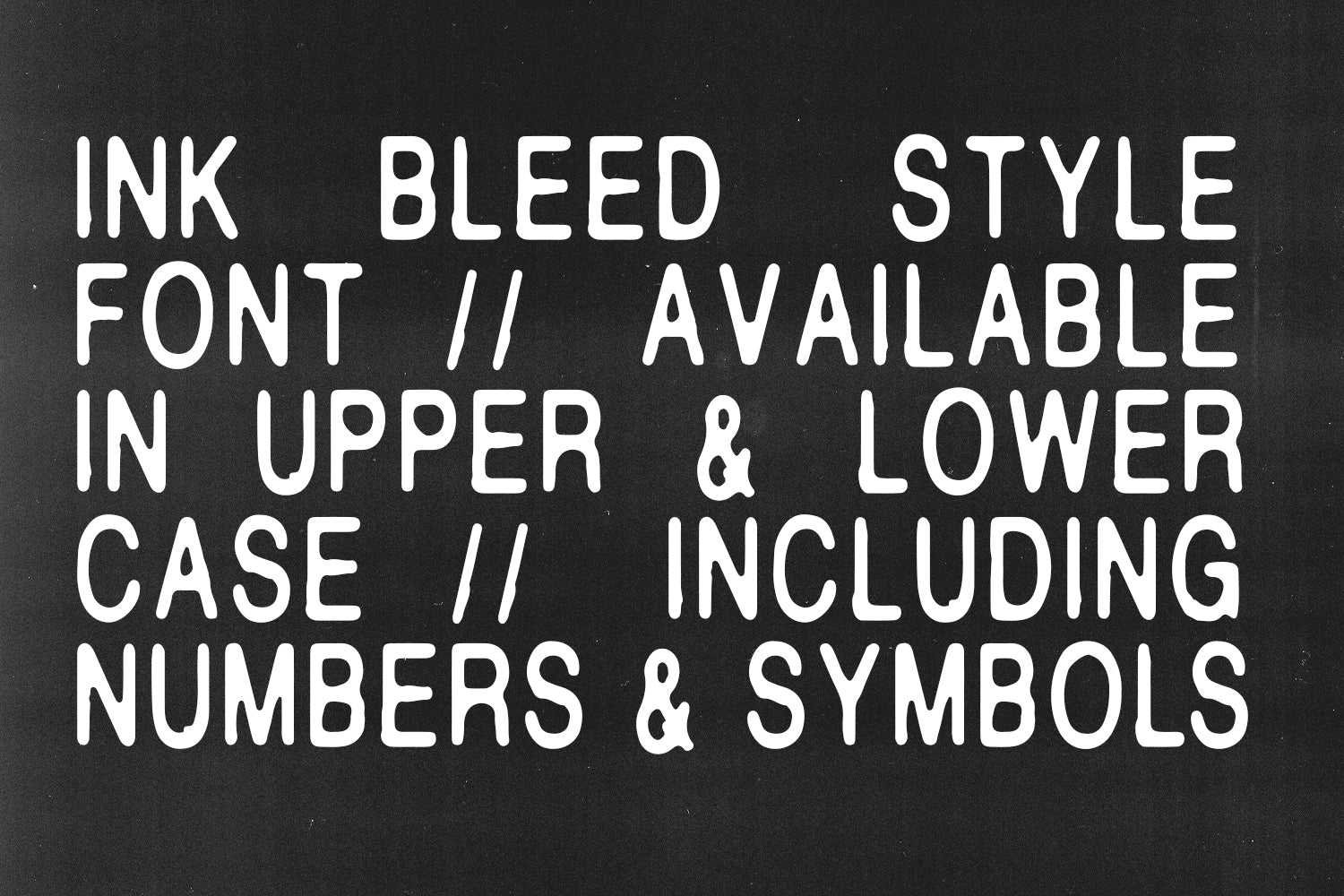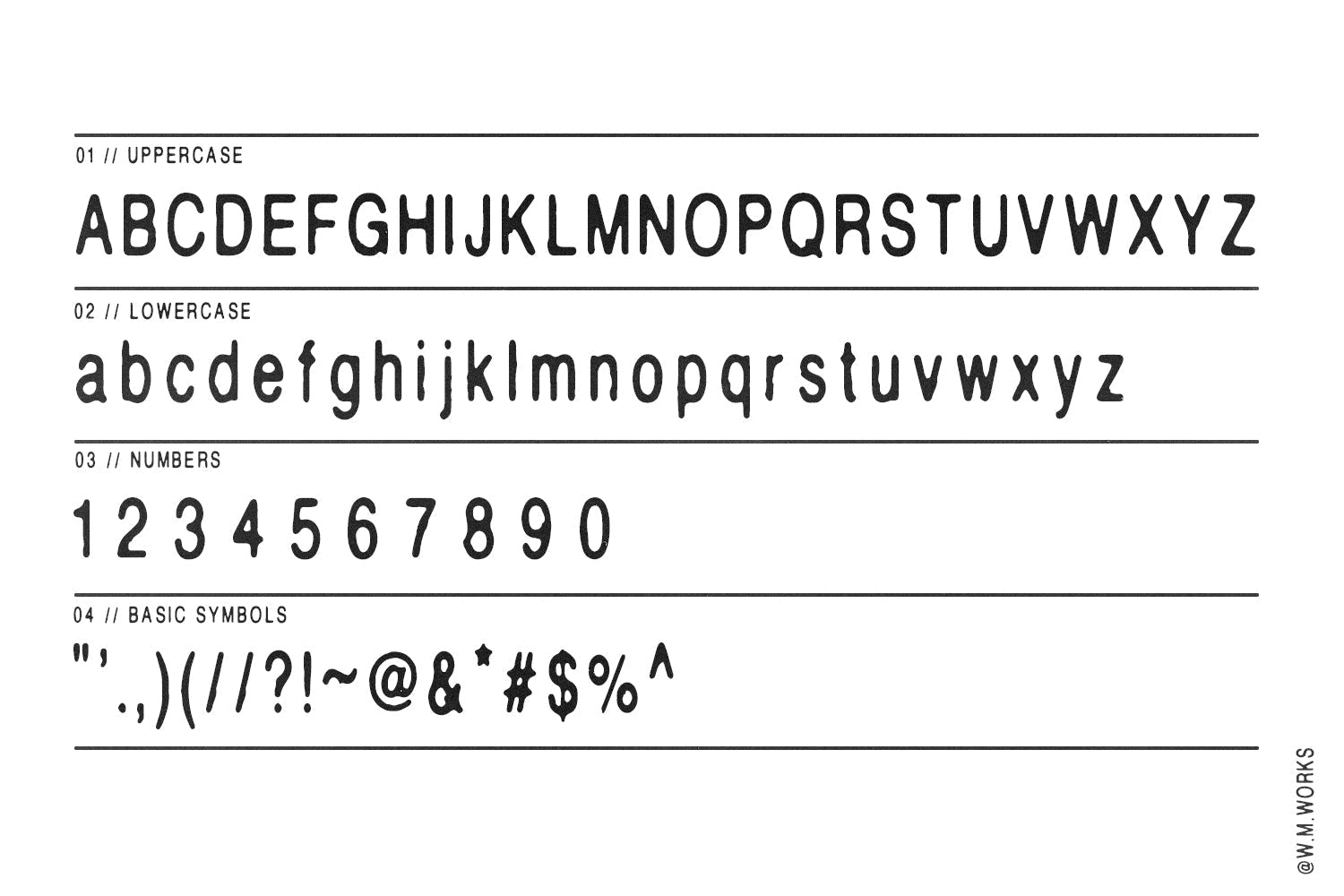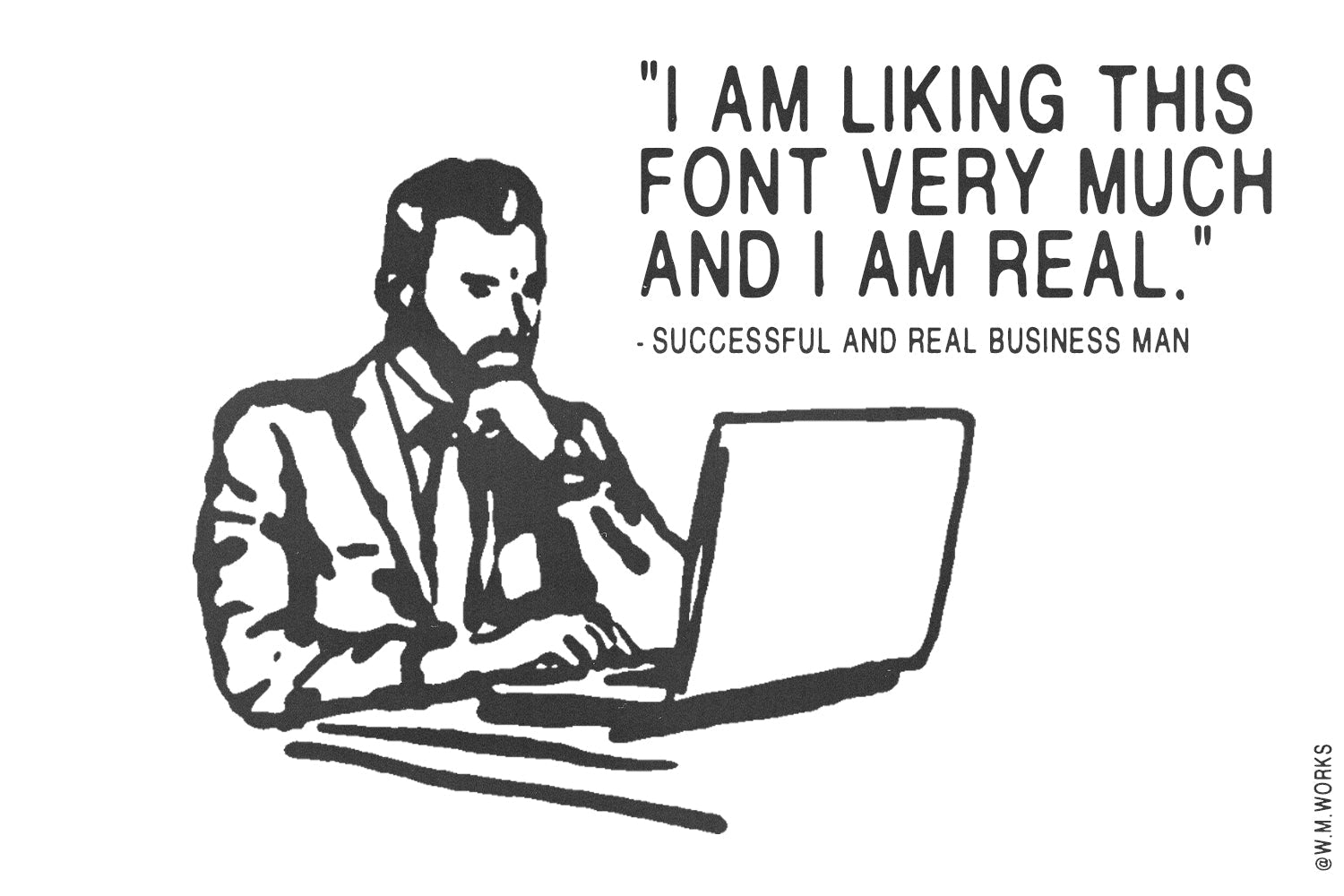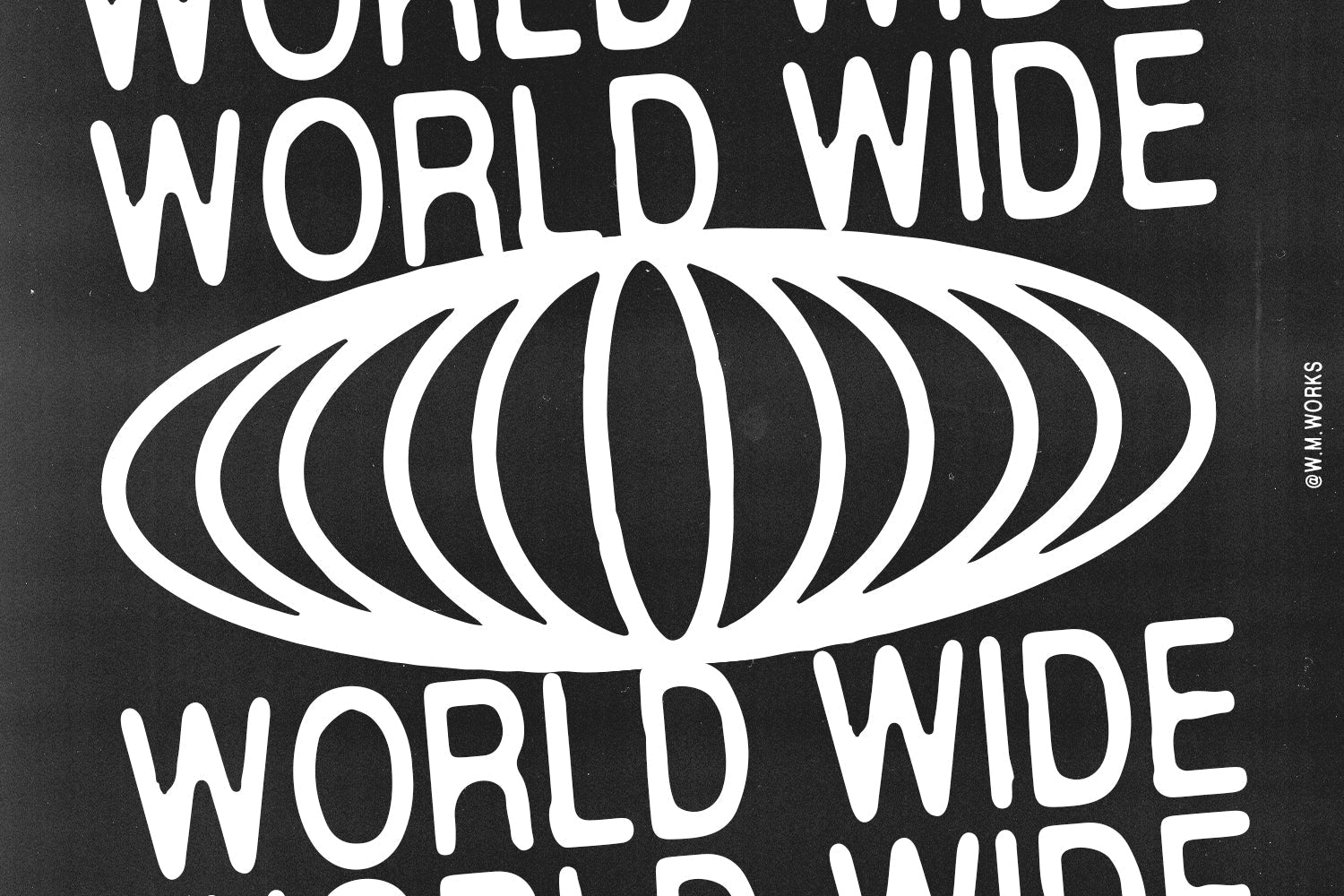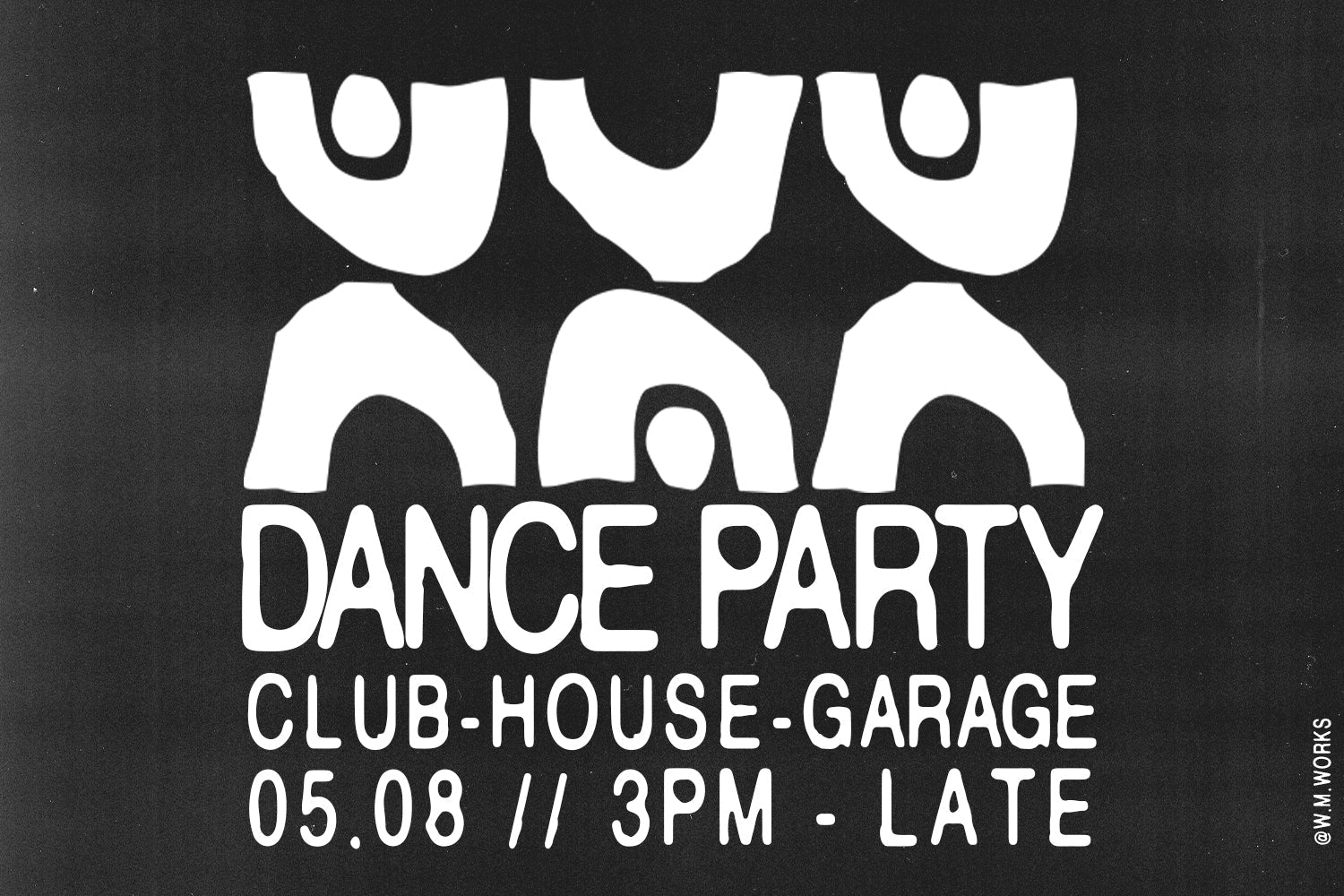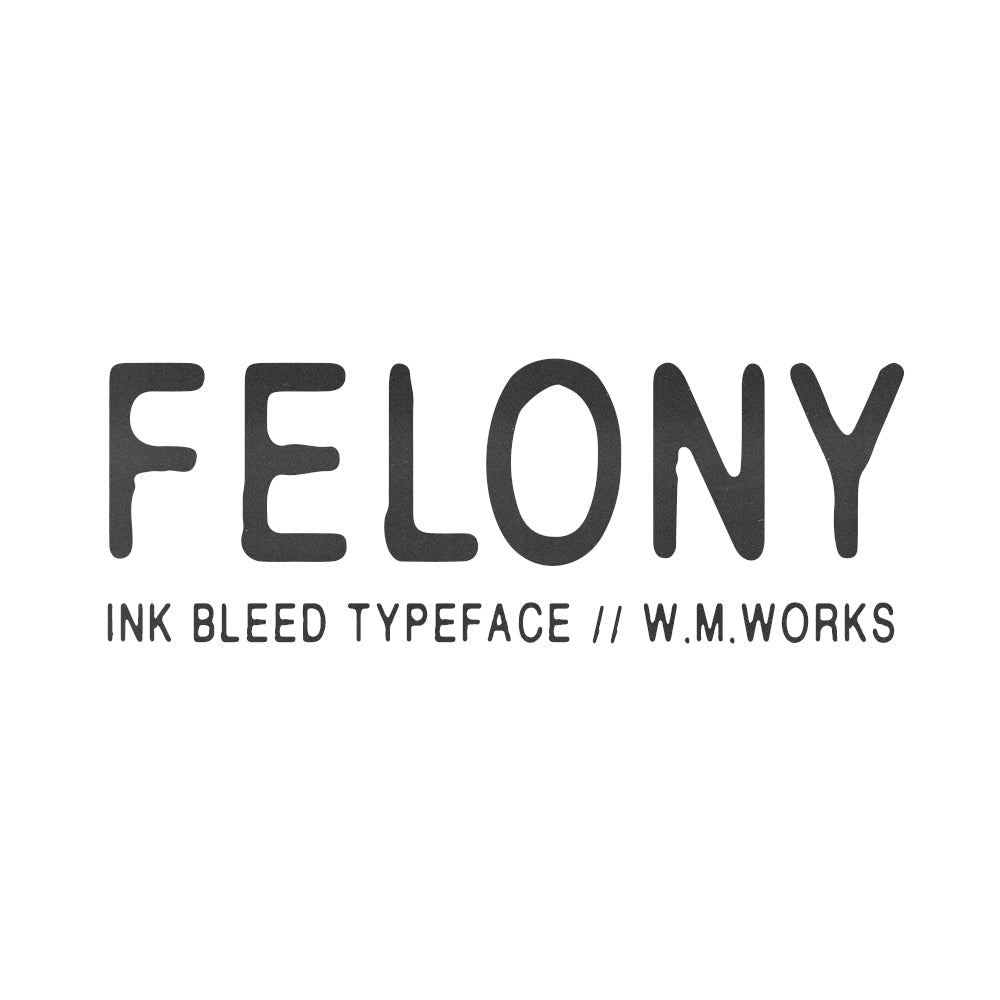
FELONY Condensed is an ink bleed style typeface inspired by grunge design treatments. Available in Caps and Lowercase with basic symbols and numbers. (.otf file)